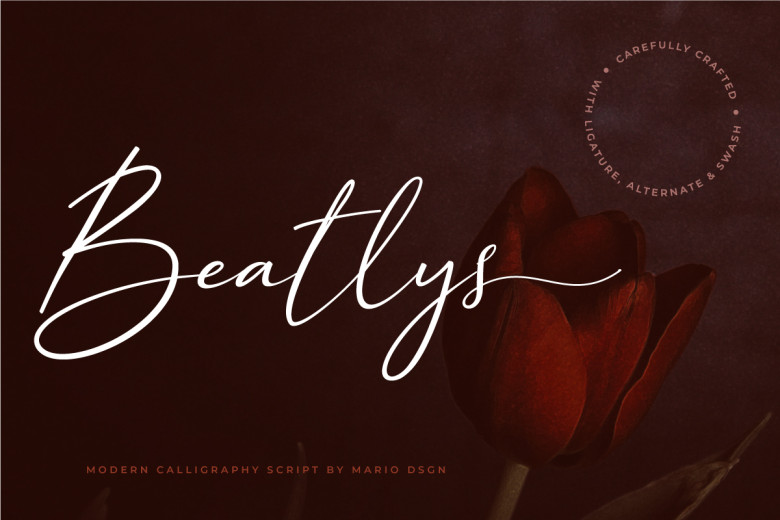
Beatlys Font
Beatlys is a calligraphy script typeface as well as the fresh wind of lamp. Beatlys can be used in logo and branding design, wedding invitation design, photography, fashion advertising, packaging, product label, watermark and other fields that require natural inscriptions signatures. It uses PUA Encoded swashes and verifying systems to guarantee access to every available glyph!
Beatlys Calligraphy Script Font